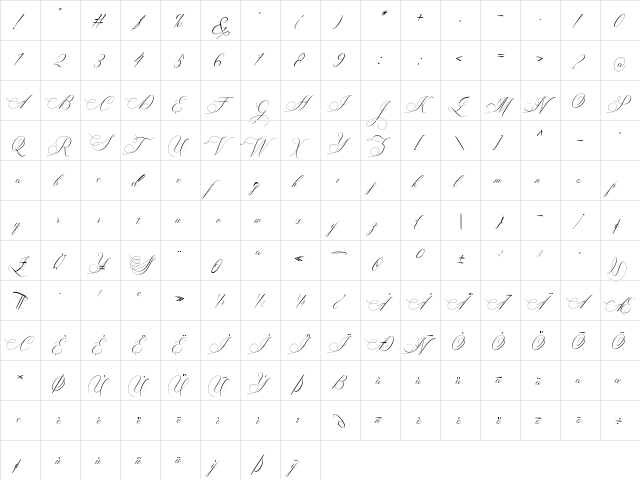
Aureligena Script Regular
| Foundry | Logic Type |
| Designer | Logic Type |
Design Context for Aureligena Script Typeface
Aureligena Script brings a calligraphic fluidity to the page — its connecting strokes and expressive curves give it an unmistakably human quality.